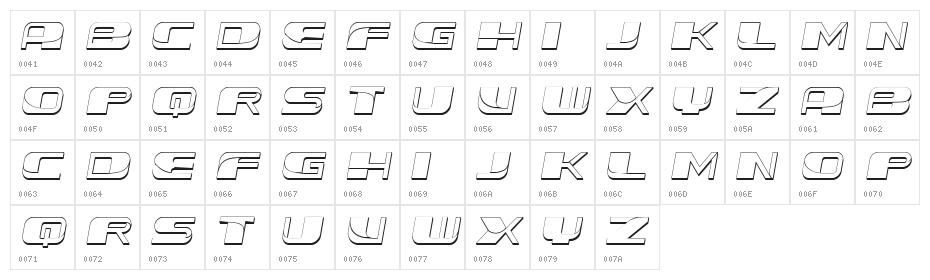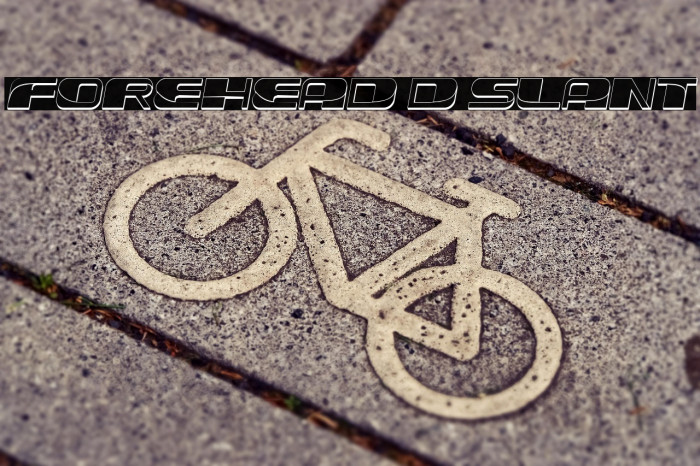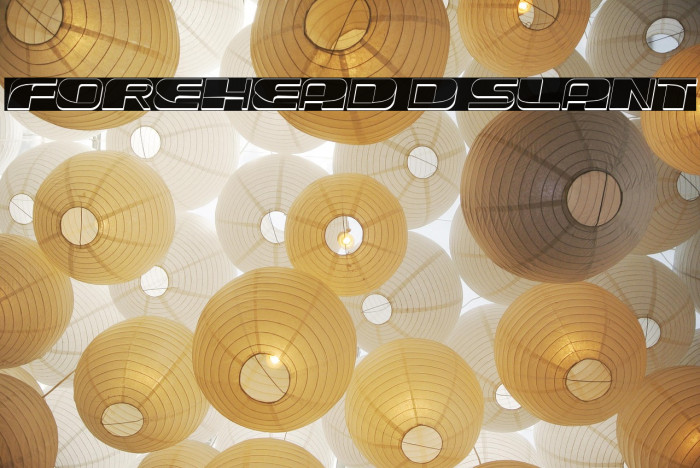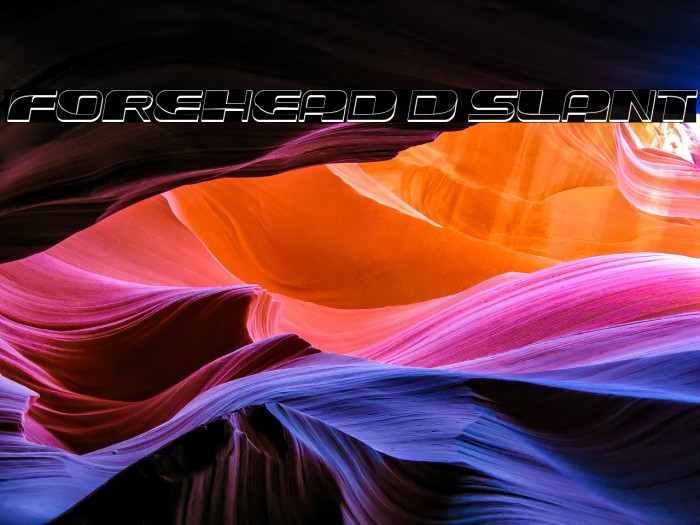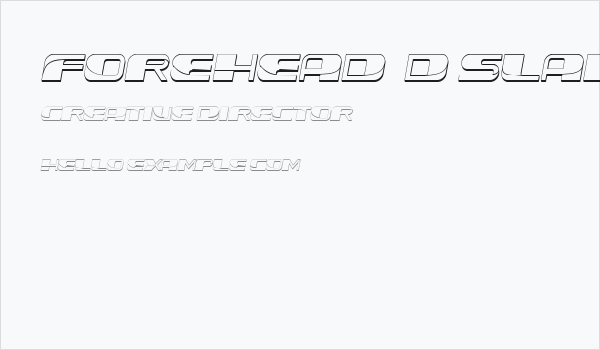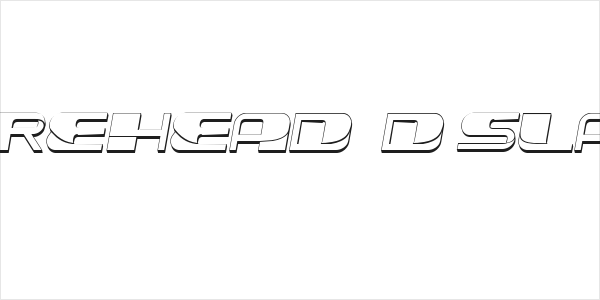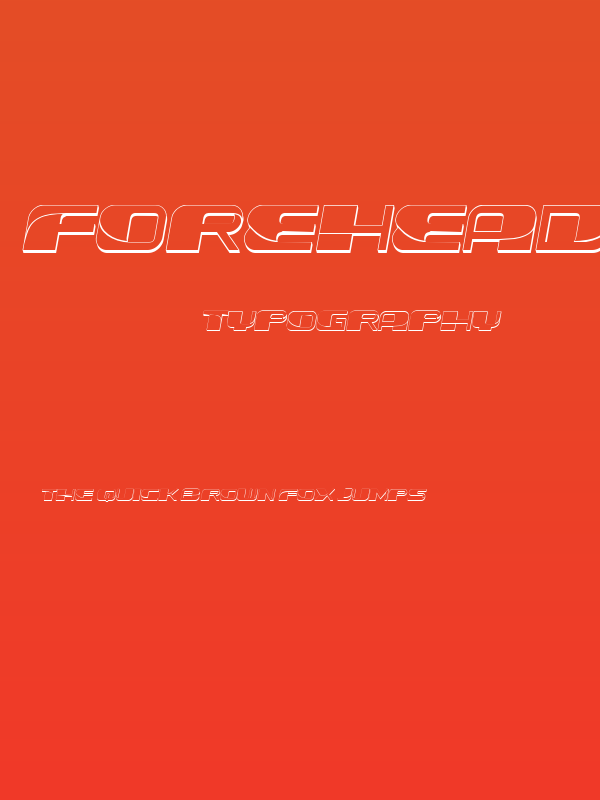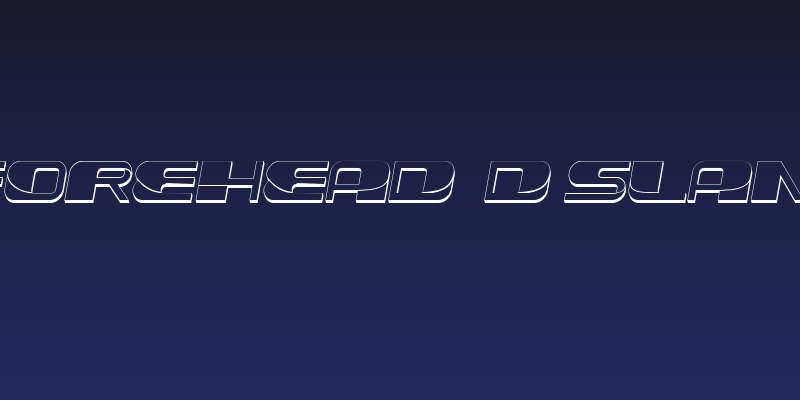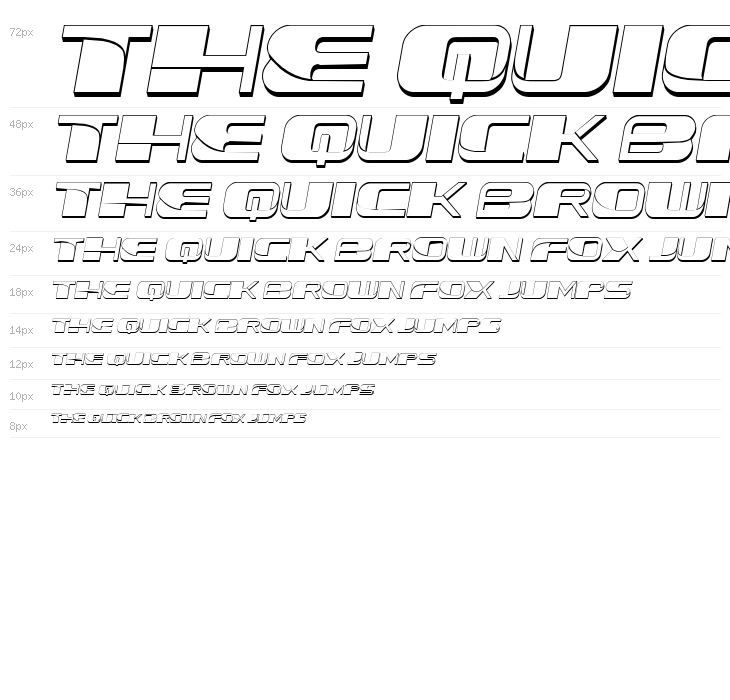
Forehead 3D Slant Font
Forehead 3D Slant Description
This font features a bold, futuristic design with a 3D slant effect that gives each character a sense of depth and movement. The uppercase letters are designed with sharp, angular lines and a consistent slant that creates a dynamic visual flow. The font's geometric structure is complemented by its clean, open counters and uniform stroke widths, enhancing readability while maintaining a modern aesthetic. The absence of lowercase letters and numbers suggests a focus on impactful, attention-grabbing text, making it ideal for headlines or branding. The special characters retain the same stylistic elements, ensuring consistency across all glyphs.
| Proposed Projects | Perfect for futuristic branding, tech-related projects, sci-fi posters, and modern advertising campaigns. |